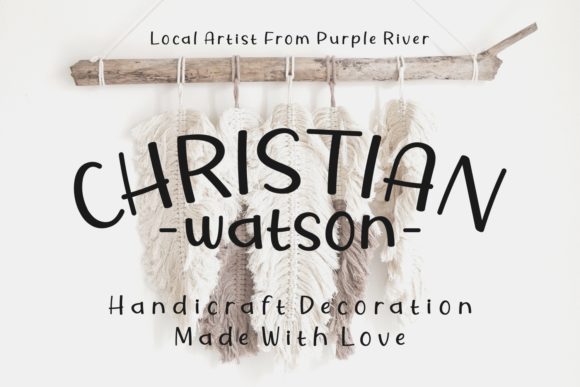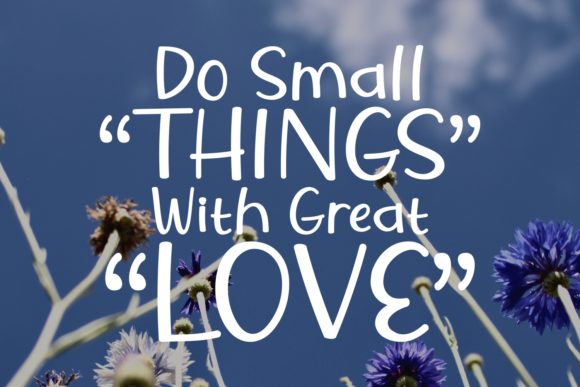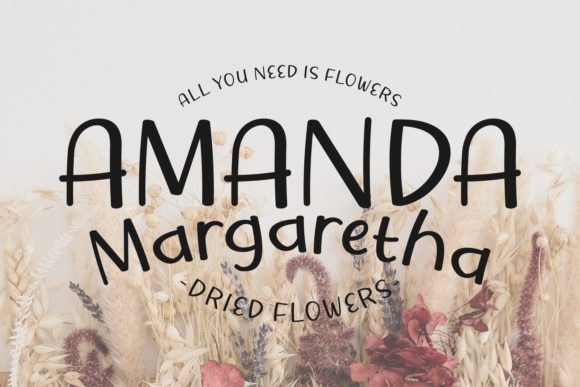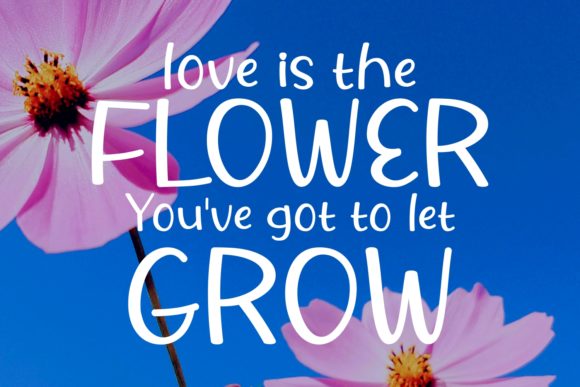
Introducing Barlyn Octavia Font: The Ultimate Display Font for Creative Designs
Are you tired of using the same old fonts in your designs? Do you want to add a fresh and contemporary touch to your creative projects? Look no further than Barlyn Octavia Font, a bouncy and quirky display font that’s sure to make your designs stand out.
What is Barlyn Octavia Font?
Barlyn Octavia Font is a unique and eye-catching display font that’s perfect for designers and crafters looking to add some personality to their work. This font is characterized by its bouncy and quirky style, which gives it a fresh and modern feel. Whether you’re working on a logo, a poster, or a digital project, Barlyn Octavia Font is sure to add a touch of whimsy and fun.
Key Features of Barlyn Octavia Font
So, what makes Barlyn Octavia Font so special? Here are just a few of its key features:
- Bouncy and quirky style: Barlyn Octavia Font has a unique and playful style that’s sure to grab attention.
- Fresh and contemporary feel: This font has a modern feel that’s perfect for designers and crafters who want to stay on top of the latest trends.
- Perfect for display text: Barlyn Octavia Font is designed specifically for display text, making it perfect for headlines, titles, and other prominent text elements.
- Easy to read: Despite its playful style, Barlyn Octavia Font is easy to read, even at smaller sizes.
How to Use Barlyn Octavia Font in Your Designs
So, how can you use Barlyn Octavia Font in your designs? Here are a few ideas to get you started:
- Logos and branding: Use Barlyn Octavia Font to create a unique and memorable logo that stands out from the crowd.
- Posters and flyers: Add a touch of whimsy to your posters and flyers with Barlyn Octavia Font.
- Digital projects: Use Barlyn Octavia Font to add a fresh and modern touch to your digital projects, such as social media graphics and website headers.
- Crafting and DIY projects: Barlyn Octavia Font is also perfect for crafters and DIY enthusiasts who want to add a personal touch to their projects.
Tips for Getting the Most Out of Barlyn Octavia Font
Here are a few tips for getting the most out of Barlyn Octavia Font:
- Use it sparingly: Because Barlyn Octavia Font is a display font, it’s best to use it sparingly to avoid overwhelming your design.
- Experiment with colors and textures: Barlyn Octavia Font looks great with bold colors and textures, so don’t be afraid to experiment and find the perfect combination for your design.
- Pair it with other fonts: Barlyn Octavia Font pairs well with other fonts, so try combining it with a serif or sans-serif font to create a unique and interesting design.
In conclusion, Barlyn Octavia Font is a unique and versatile display font that’s perfect for designers and crafters looking to add a fresh and contemporary touch to their creative projects. With its bouncy and quirky style, this font is sure to make your designs stand out. So why not give it a try and see the difference it can make in your work?
- What is Barlyn Octavia Font?: Barlyn Octavia Font is a bouncy and quirky display font designed for use in creative projects.